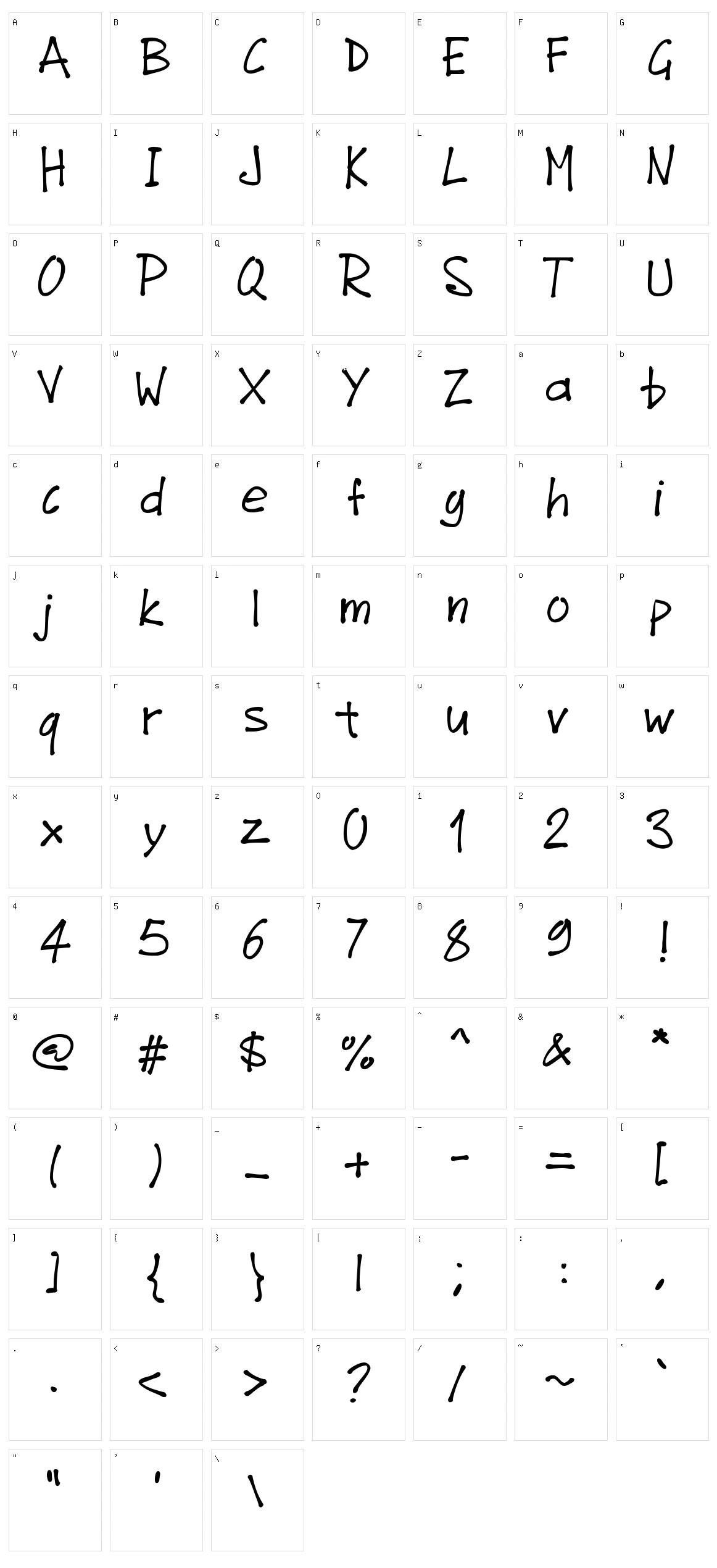
PW Junefont
Description: The free font PW Junefont is carefully designed by Peax Webdesign, showcasing a thoughtful balance of creativity and usability and falls under the Script font style. When you download the ZIP file, it contains only 81.4 KB of font files, making it lightweight and quick to download. Please review the license details below to understand permitted usage and distribution rights. If license information is not available, we recommend using this font for personal projects only or contacting the author directly for commercial usage permissions.